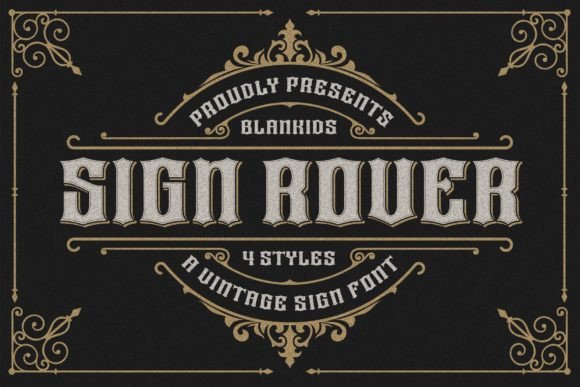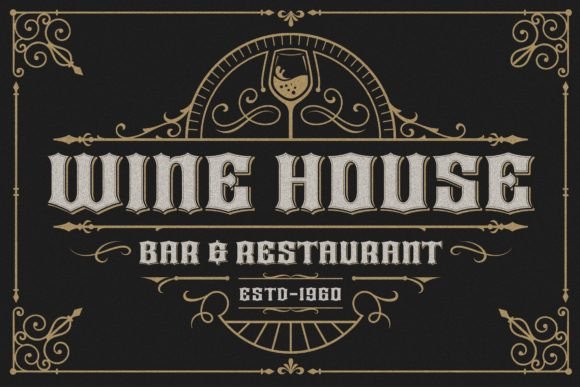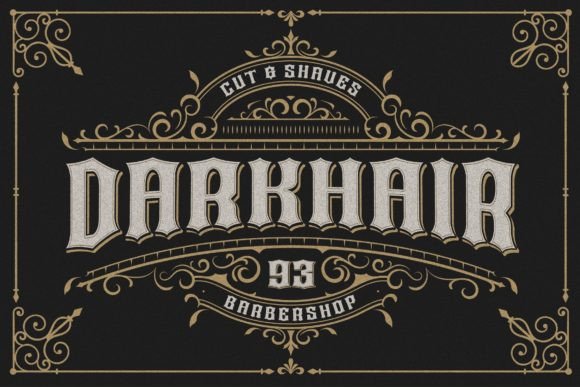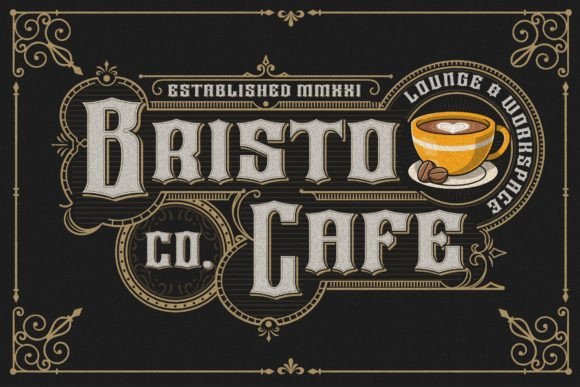
Sign Rover Font
About the Sign Rover Font
Welcome to the world of Sign Rover Font, a typeface that will inspire your next great project. Sign Rover is a modern and attractive blackletter font that has the perfect blend of tradition and modernity. It features a sleek, updated take on classic calligraphic elements, resulting in a bold and stylish font that is sure to make a statement. Ideal for use in logos, headlines, titles, and other design projects that demand a touch of sophistication and elegance.